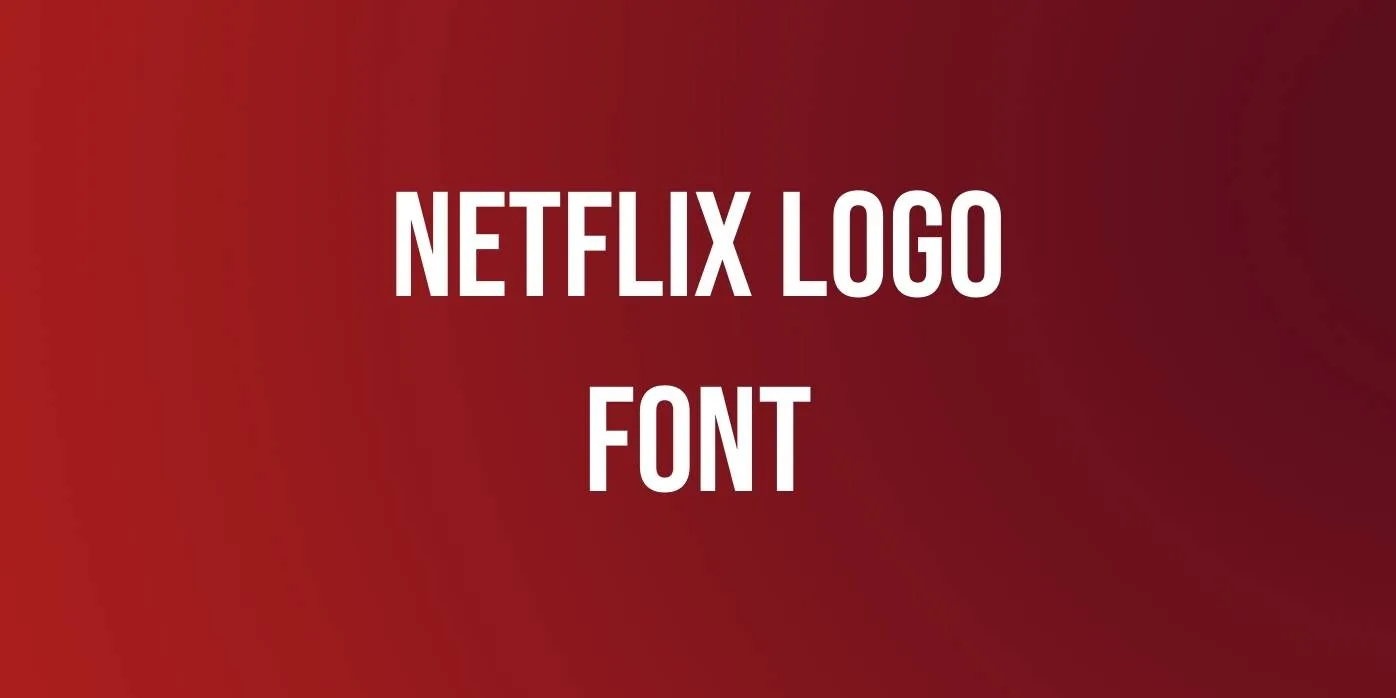
Netflix Logo Font
In this post, we introduce a modern typeface that is known by the name Netflix Logo Font. Hermann Eidenbenz is the designer of this family. It belongs to the sans serif family. This family is well specified for the CSS family.
You can use youtube sans font which has the same style and characters as this one. Netflix Logo Font has a very unique and stylish design. The letters are quite thin and have a tall x-height. This makes the typeface perfect for headlines and titles.
It would also look great in any display setting. This typeface has different stylish characters. The uppercase letters are quite tall while the lowercase letters are shorter. This makes for a very stylish and unique look.